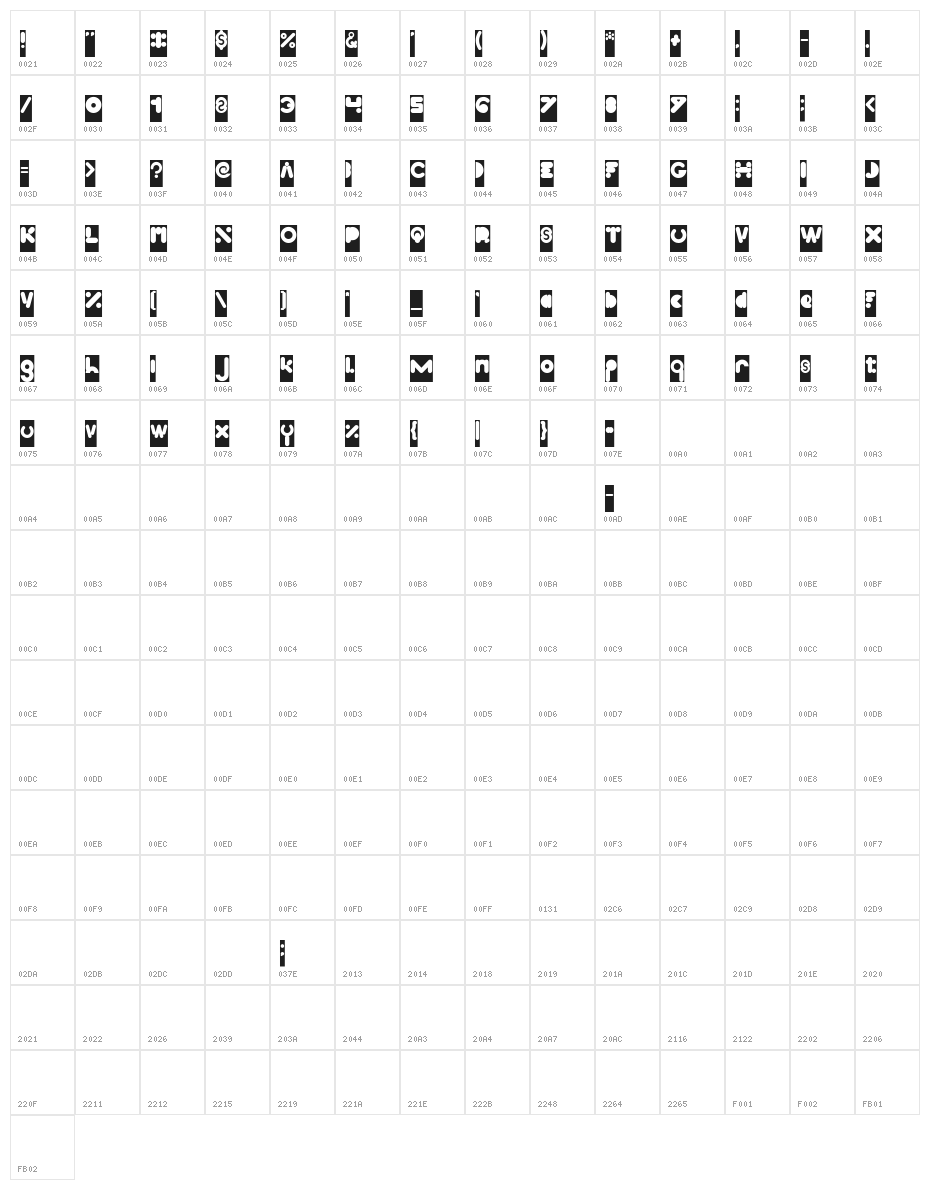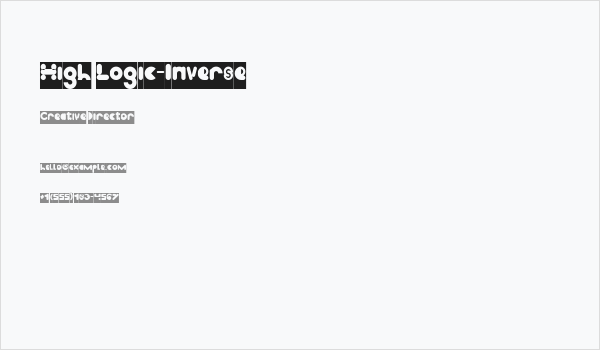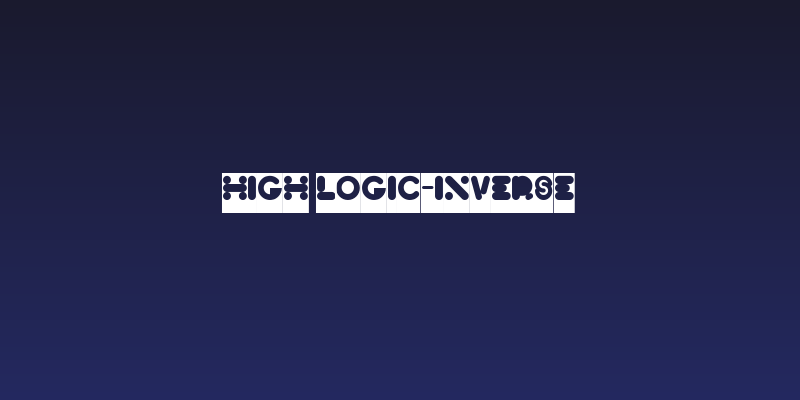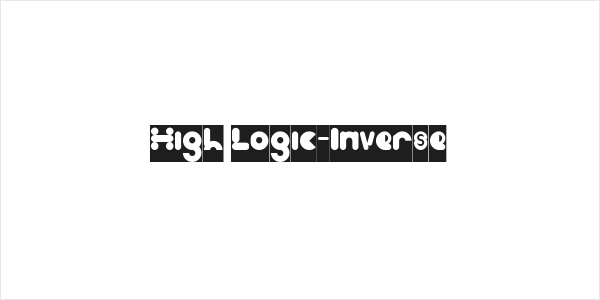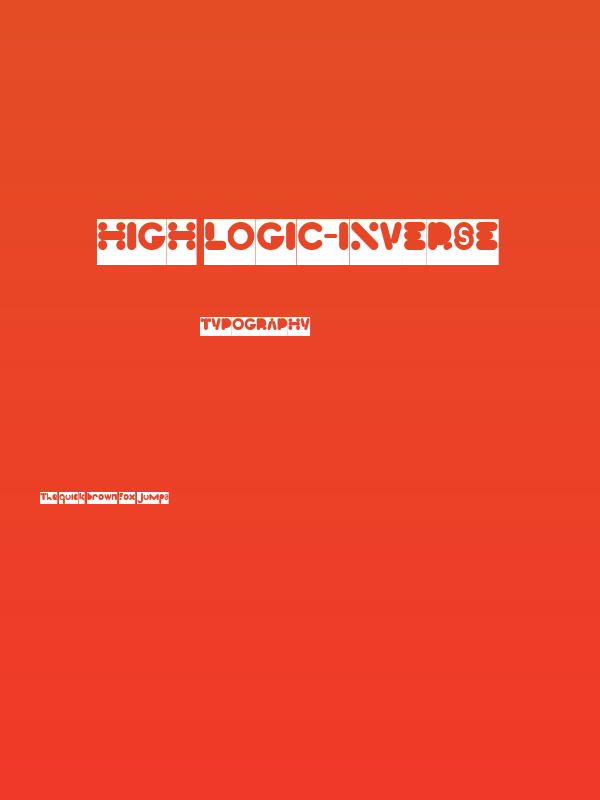
High Logic-Inverse Font
High Logic-Inverse Description
This font features a bold and playful design with a unique inverse style, where the characters are filled with solid white against a black background. The letters are rounded and chunky, giving them a modern and fun appearance. The uppercase and lowercase letters maintain a consistent style, with some characters like 'g' and 'y' having distinct loops and tails. Numbers and special characters follow the same bold and rounded aesthetic, making them easily recognizable. The overall design is eye-catching and suitable for creative projects that require a standout typeface.
| Proposed Projects | Ideal for posters, children's books, branding, and any project requiring a fun and modern typeface. |
| Author | weknow - Wino S Kadir - www.creativefabrica.com/designer/weknow/ |